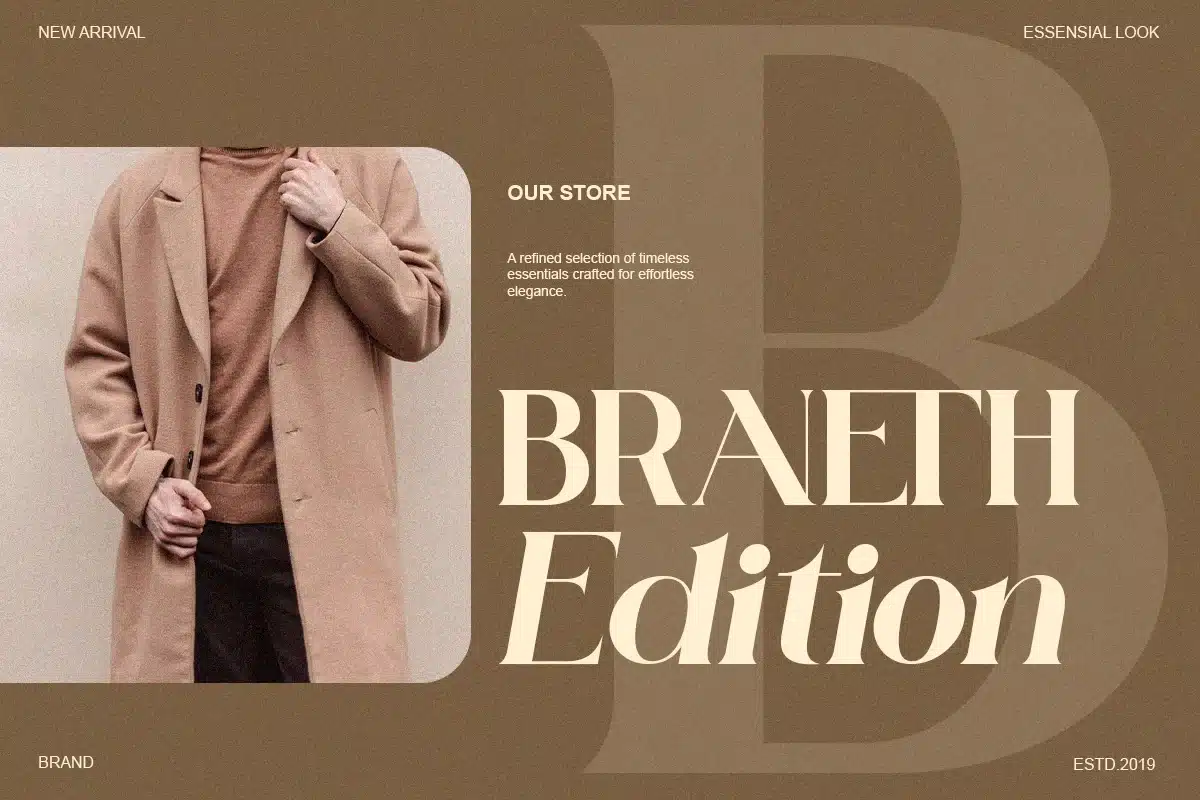
Modern Branding Swash – Anthela Font
Anthela is an elegant boutique serif font designed with graceful swashes, refined curves, and modern serif structure. This stylish serif typeface blends luxury aesthetics with warm femininity, making it perfect for branding, beauty logos, fashion labels, packaging, and wedding designs.
With smooth flowing alternates and ligatures, Anthela delivers a premium handcrafted serif look while maintaining professional readability.
Perfect for:
- Boutique logos
- Fashion branding
- Beauty packaging
- Jewelry branding
- Wedding invitations
- Social media templates
- Cafe & lifestyle branding
- Editorial headline design
Anthela is a modern elegant serif font crafted for designers who want timeless luxury with a contemporary touch.